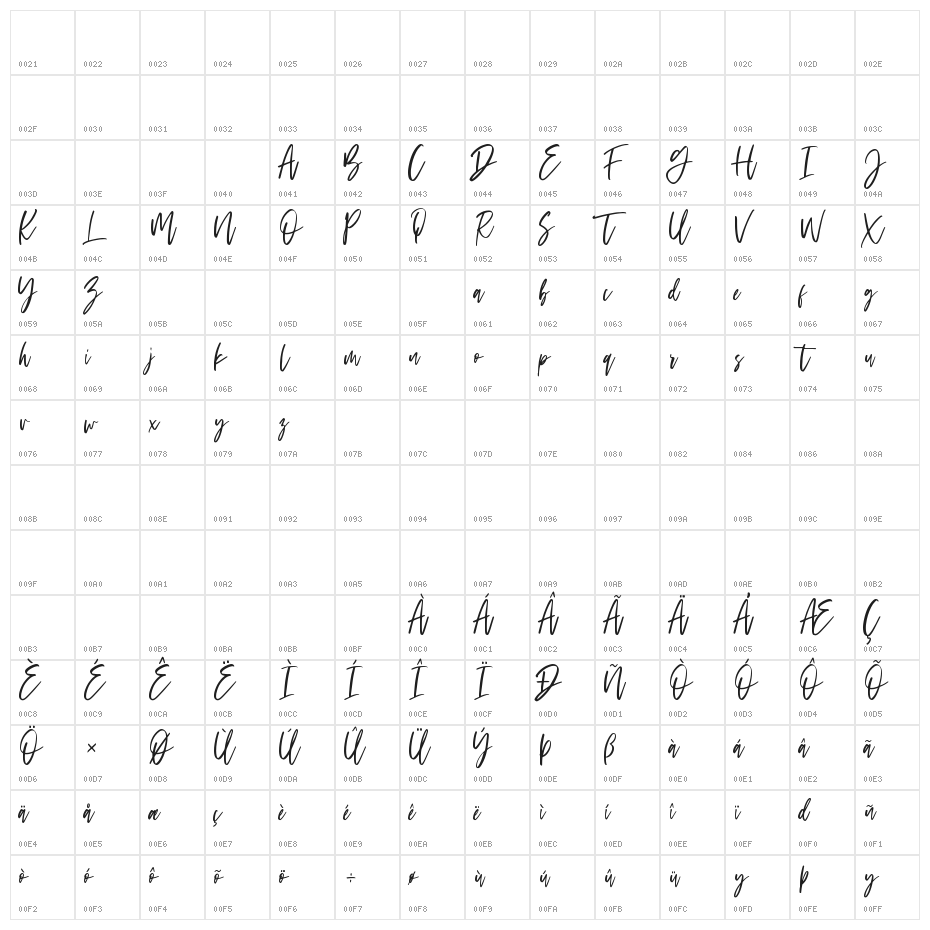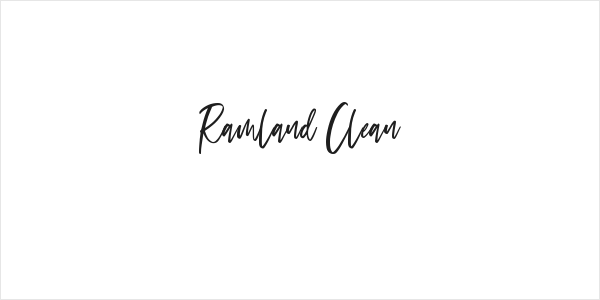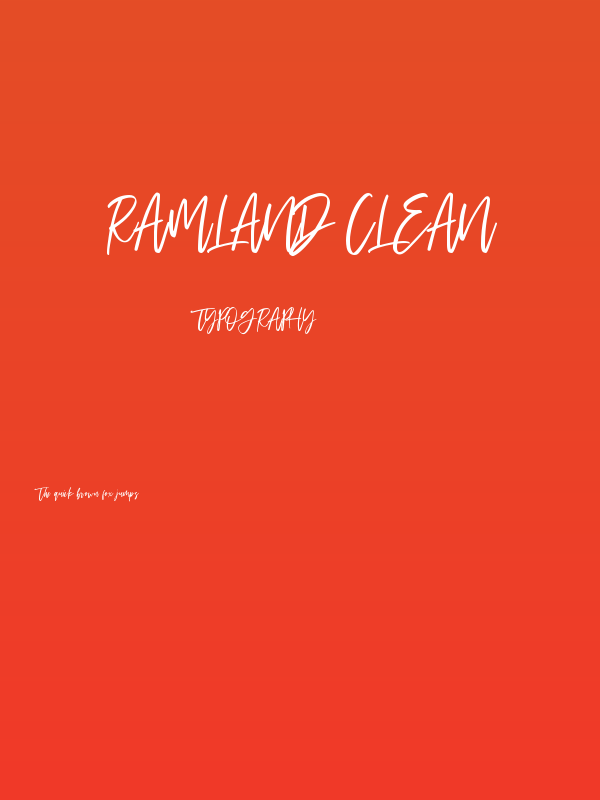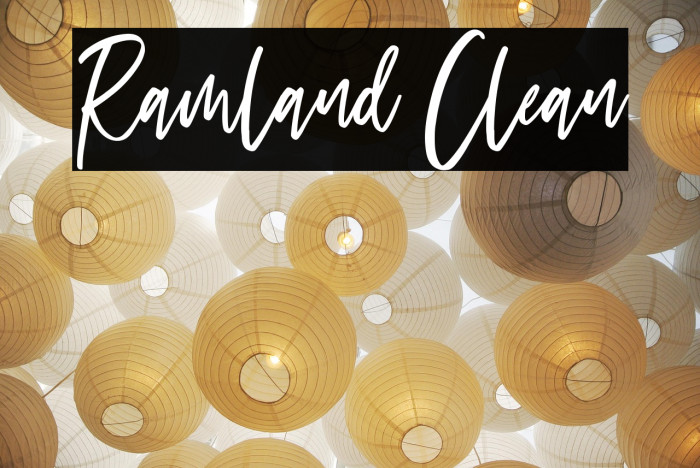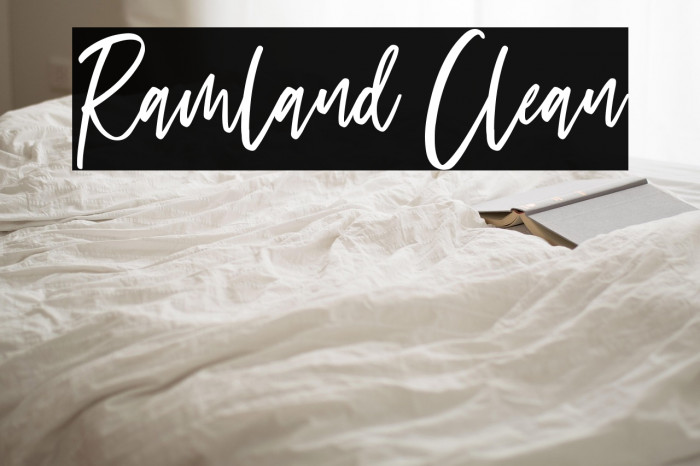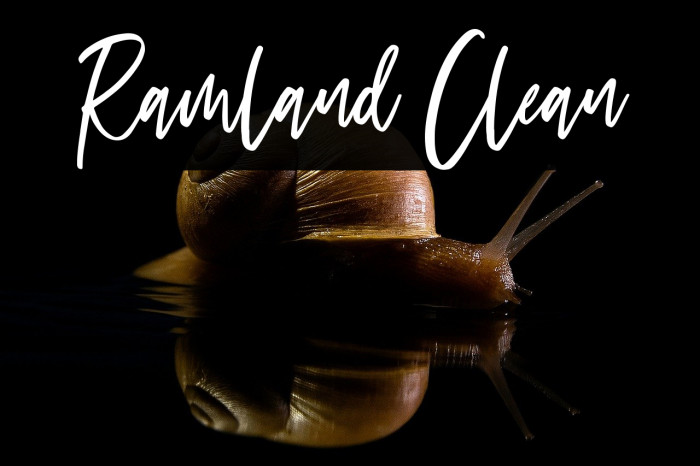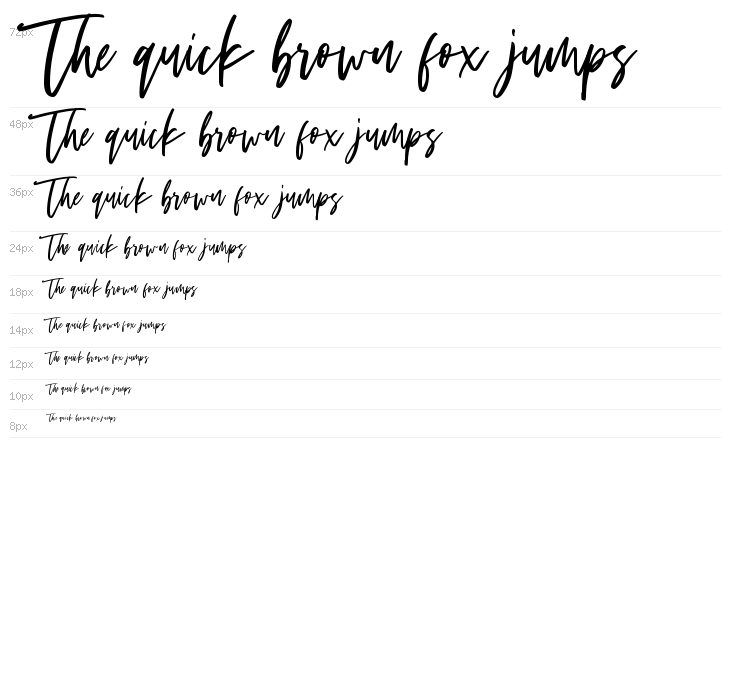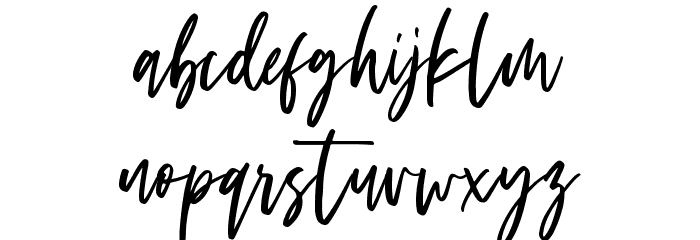
Ramland Clean Font
Ramland Clean Description
This font features a dynamic and expressive handwritten style, characterized by its fluid and flowing letterforms. The strokes are smooth and slightly irregular, giving it an authentic and personal touch. The uppercase letters are bold and prominent, while the lowercase letters maintain a consistent rhythm and balance. The overall appearance is elegant yet casual, making it suitable for a variety of creative projects. The font's unique style is enhanced by its moderate contrast in stroke thickness, adding depth and interest to the text.
| Use Case | Logos, Headlines, Decorative text |
| Proposed Projects | Ideal for wedding invitations, greeting cards, branding, and social media graphics. |